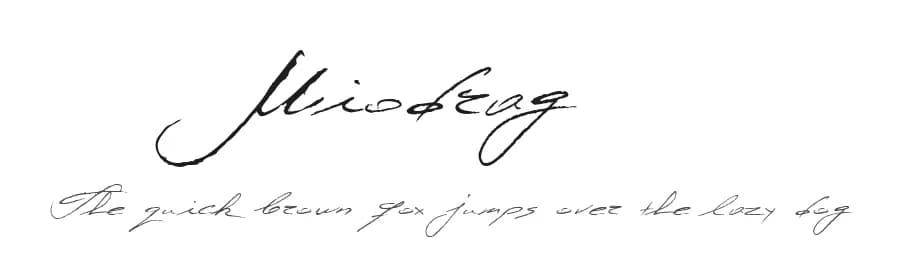
About Miodrag Font
Miodrag is a script & handwritten font designed by Milena Gajovic. It includes 140 glyphs, a regular weight, TTF (TrueType) format, and 107 languages. Miodrag is free to download; check the license details on this page before commercial use. Script & handwritten fonts like Miodrag work best for wedding invitations, greeting cards, signatures, and elegant branding.
Miodrag Font is a script font that shines as a display or heading face. Pair it with a clean sans-serif or serif font for body text β the contrast creates a clear hierarchy while the two styles stay balanced and easy to read.